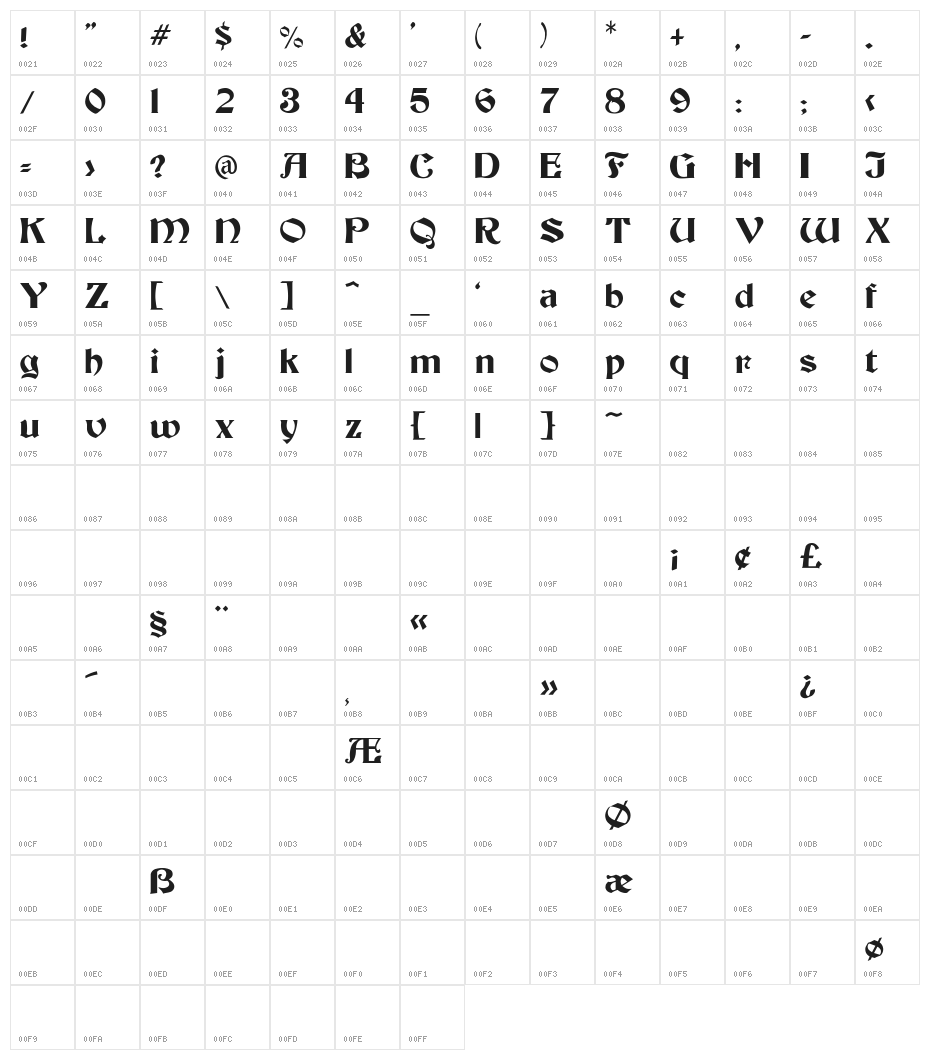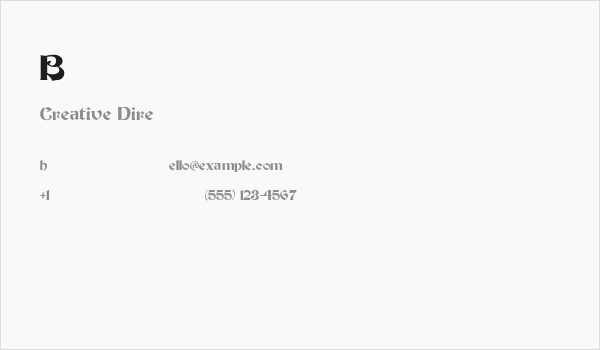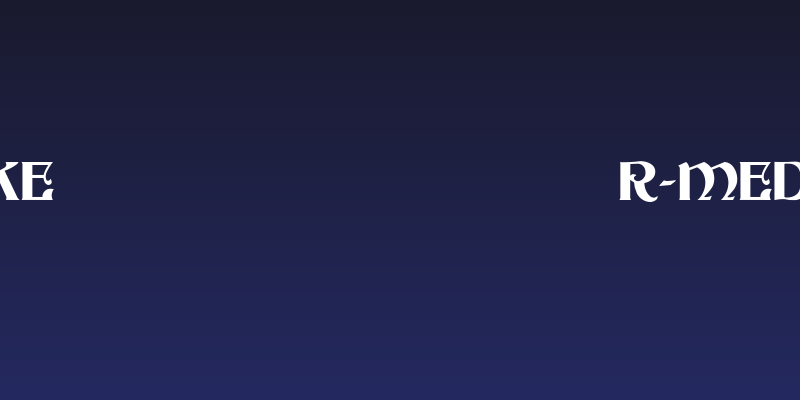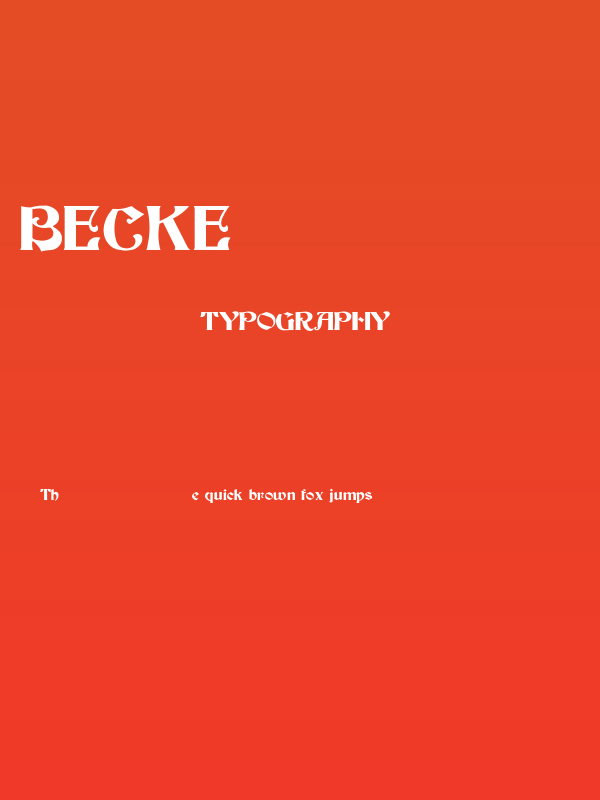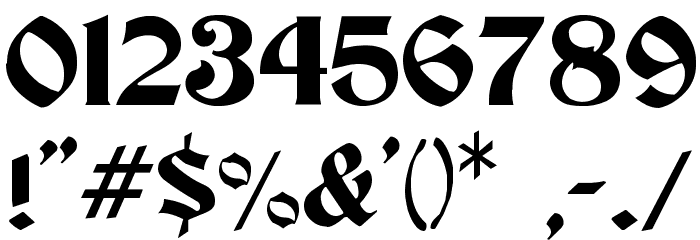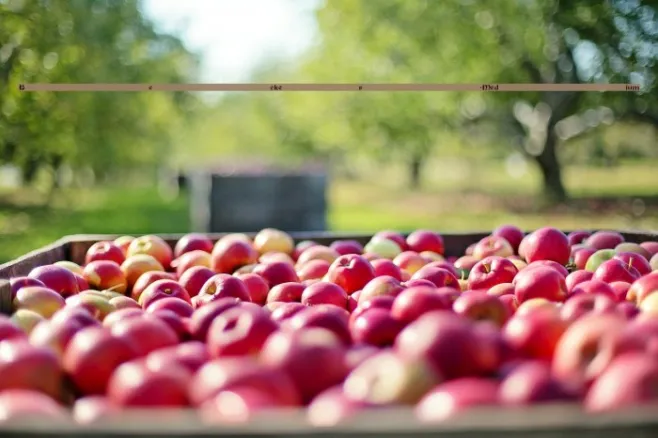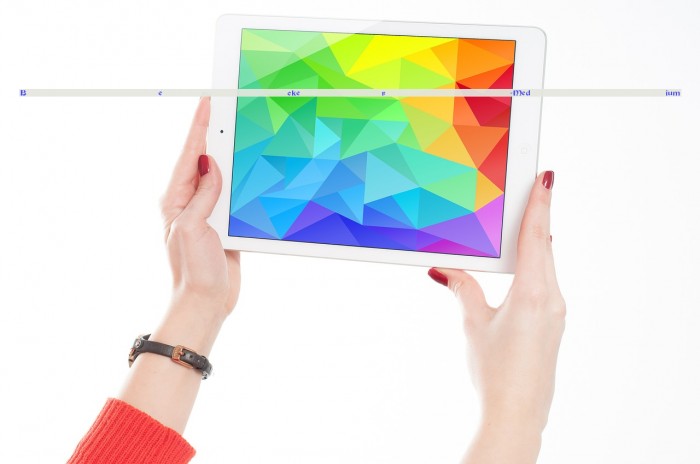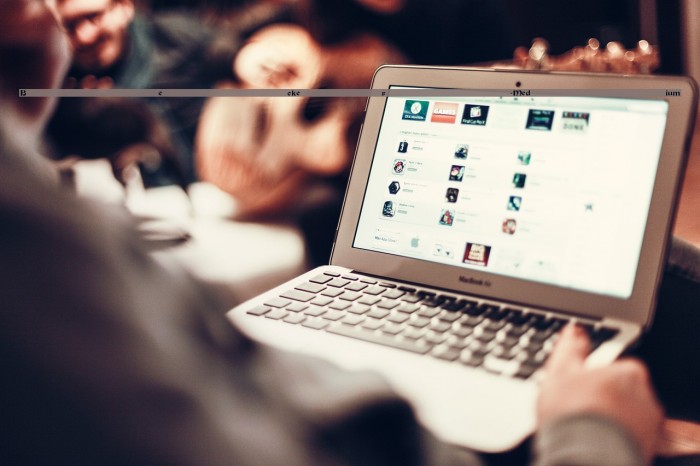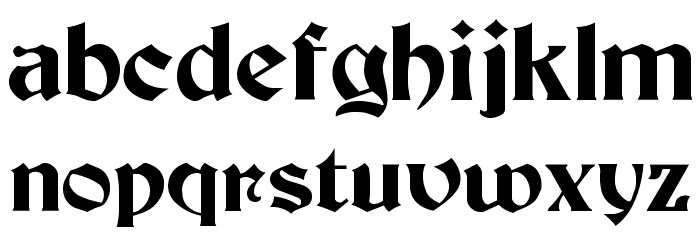
Becker-Medium Font
Becker-Medium Description
This font exhibits a bold and dramatic style, characterized by its sharp, angular serifs and thick strokes. The uppercase letters have a strong presence with a Gothic influence, featuring pointed edges and a sense of grandeur. The lowercase letters maintain this boldness, with unique flourishes that add a touch of elegance. The numerals are equally robust, ensuring readability while maintaining the overall aesthetic. Special characters are designed to complement the alphabet, with consistent weight and style. This font is ideal for making a statement, offering a blend of historical and modern elements that capture attention.